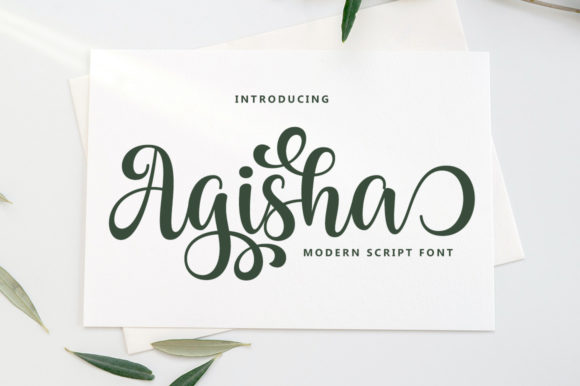
The Agisha Font: A Delicate Script to Elevate Your Designs
A Personal Review: What I Love About Agisha
Agisha is a beautiful, delicate script font that exudes elegance and class. Here are some things I love about it:
- ✨ Elegant letterforms: Agisha’s letters are carefully crafted to be both refined and visually appealing.
- ✅ Versatile: This font works well for a variety of design projects, from wedding invitations to branding and packaging.
- 💫 Unique character: Agisha has a distinct personality that sets it apart from other script fonts.
While Agisha is an amazing font, there are a few things to keep in mind:
- 🤔 Legibility at small sizes: Like many script fonts, Agisha can be tricky to read at very small sizes. Make sure to test it out before committing to a specific size.
- ⚠️ Limited use in body text: While Agisha is perfect for headings and titles, it’s not the best choice for long blocks of body text.
The Story Behind Agisha
Agisha was designed with the intention of creating a beautiful, elegant script font that would add a touch of sophistication to any design. The designer drew inspiration from classic calligraphy and modern typography to create a unique and versatile font.
| What type of projects is Agisha best suited for? | Agisha is perfect for designs that require an elegant, refined look, such as wedding invitations, branding, packaging, and titles. |